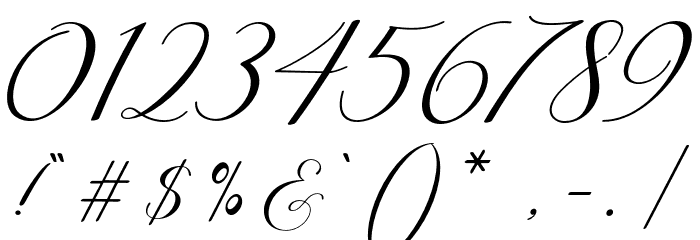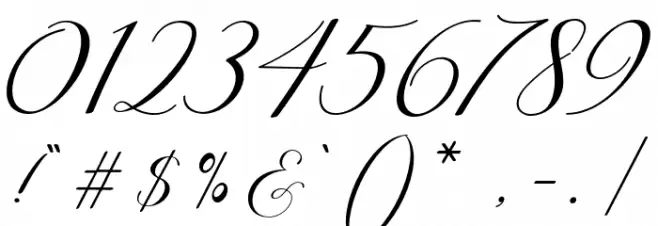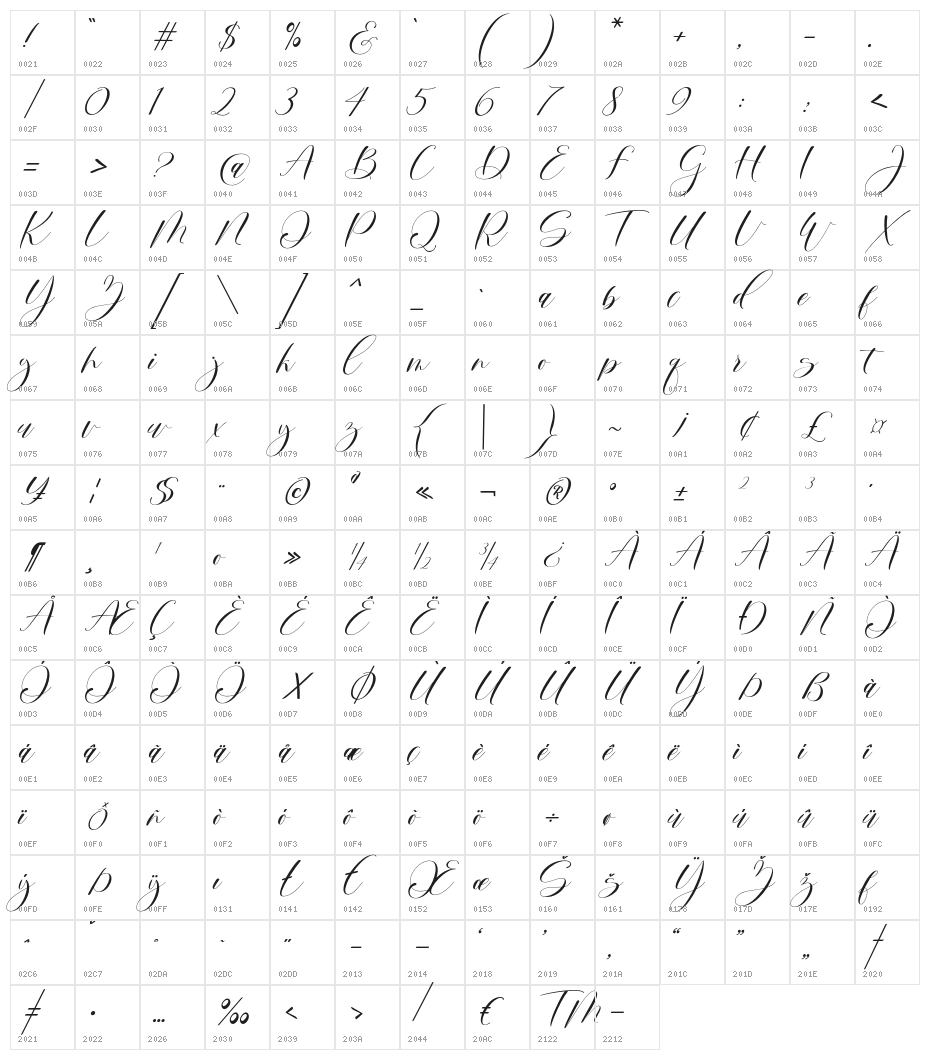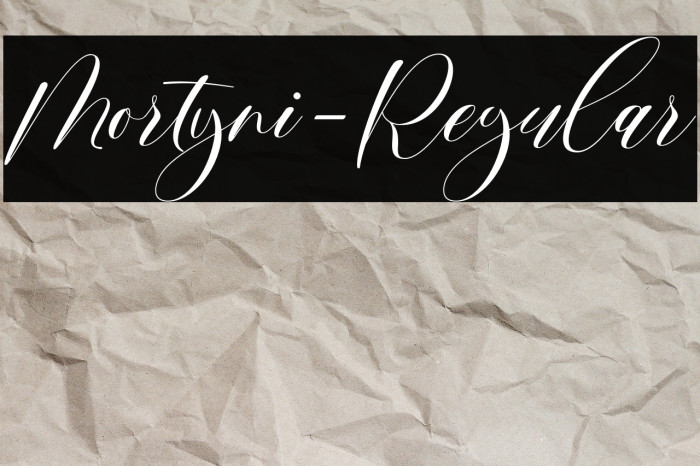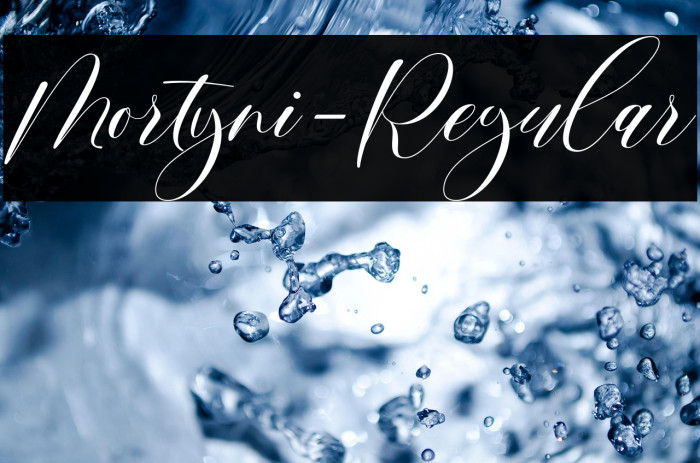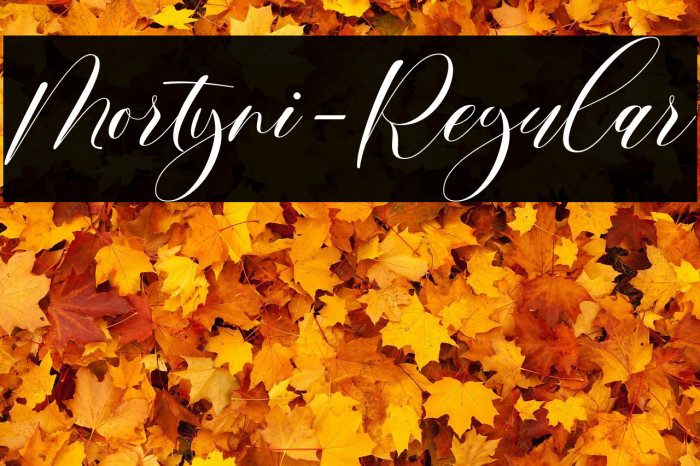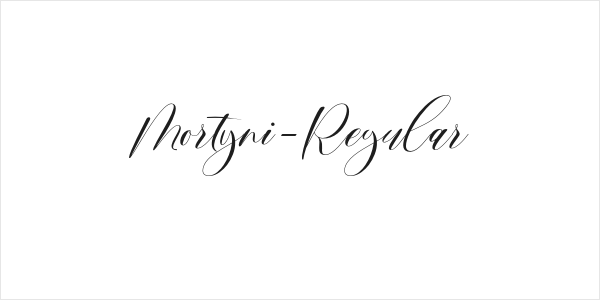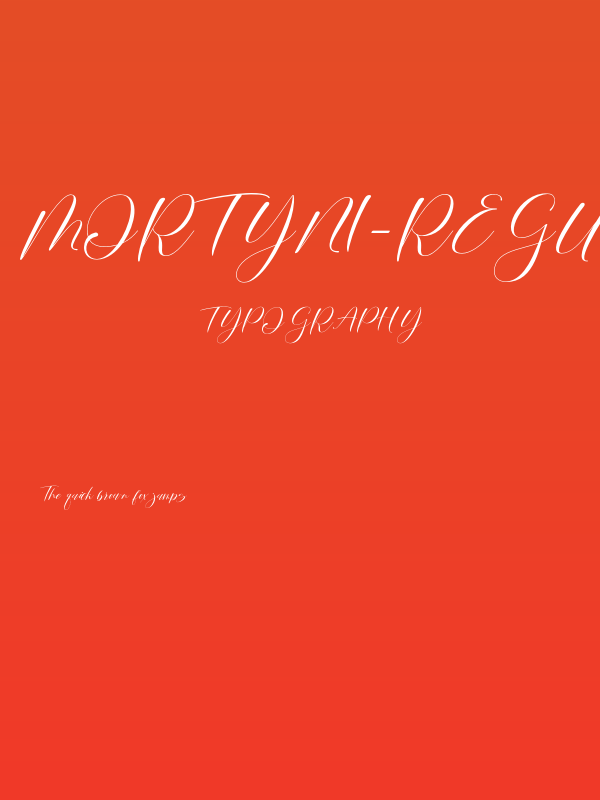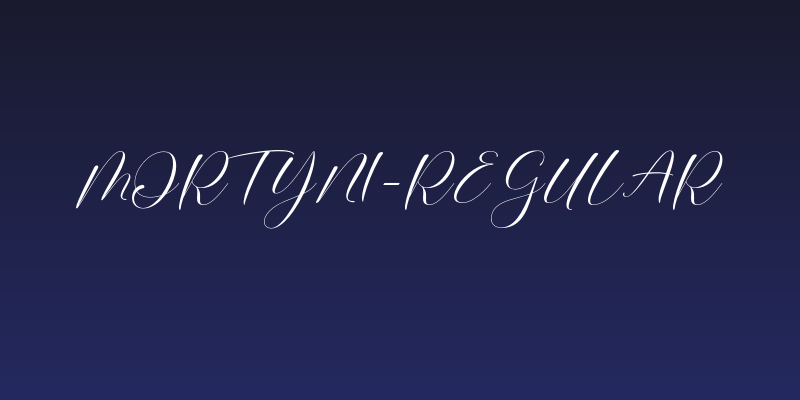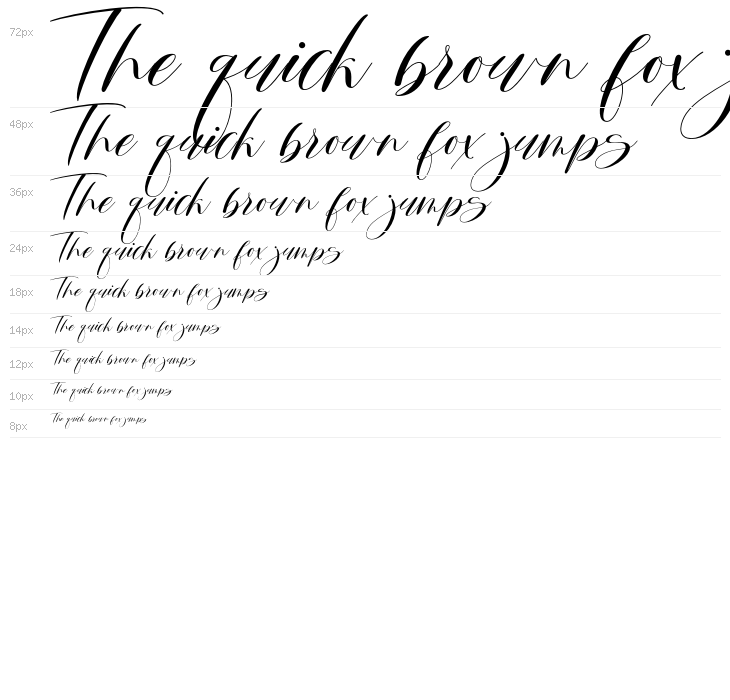
Mortyni-Regular Font
Mortyni-Regular Description
This elegant script font features graceful, flowing lines and a sophisticated style. The characters are connected with smooth, fluid strokes, giving it a handwritten appearance. The uppercase letters are tall and slender, while the lowercase letters are more rounded and compact, creating a beautiful contrast. The numbers and special characters maintain the same fluidity, making them blend seamlessly with the letters. This font is perfect for projects that require a touch of elegance and sophistication.
| Proposed Projects | Ideal for wedding invitations, elegant branding, greeting cards, and luxury packaging. |